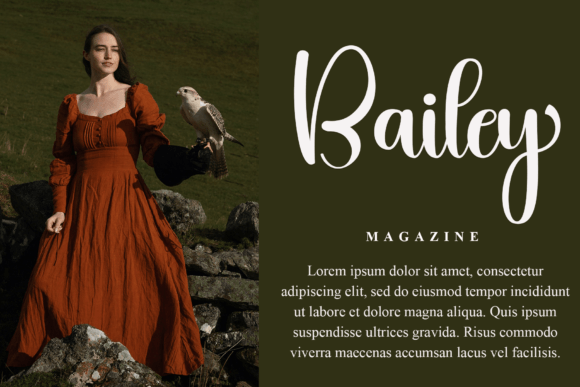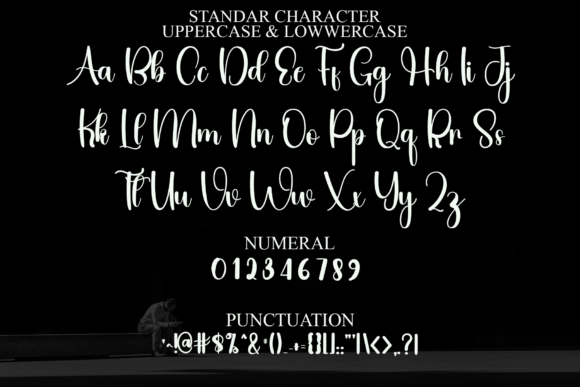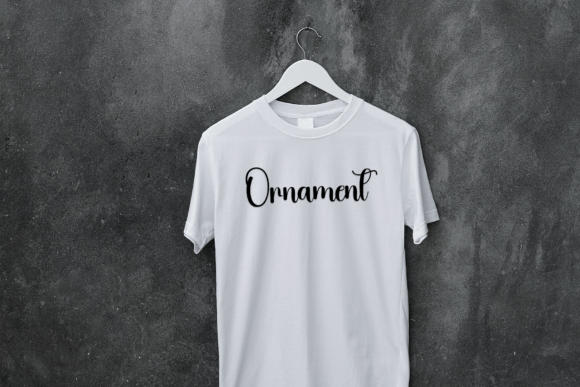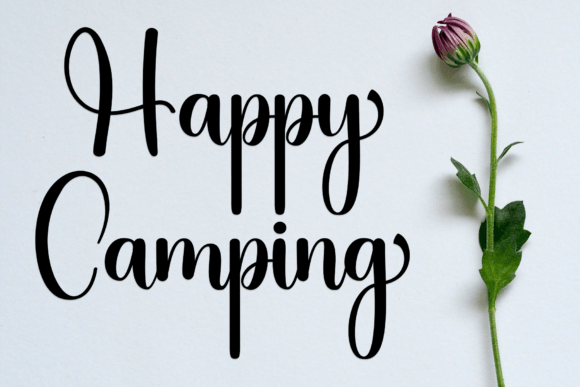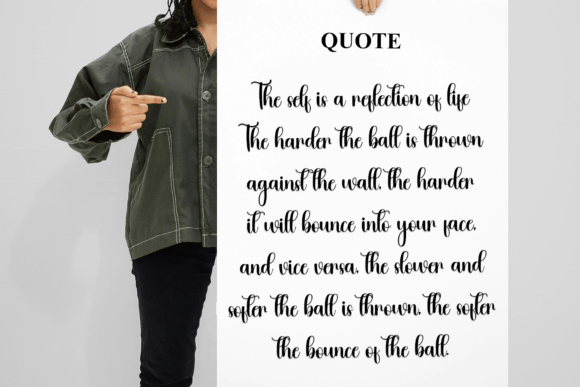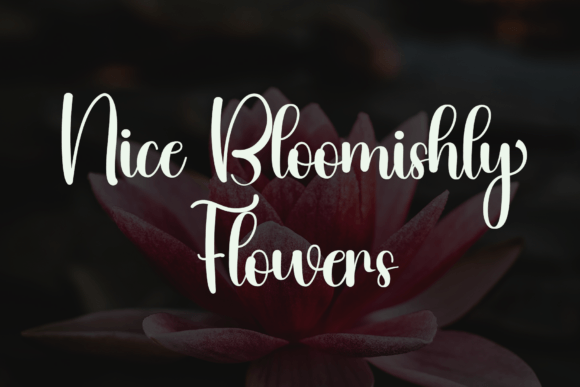
The Bloomishly Font: A Designer’s Dream Come True
I’ll never forget the moment I stumbled upon the perfect font for a client’s wedding invitation project. I had been searching for what felt like hours, scrolling through endless pages of Google results, and testing font after font in Canva. But then, I saw it – Bloomishly. I knew immediately that I had found the one. In this article, I’ll share my experience with this beautiful font, its features, and how to make the most of it in your designs.
An Honest Review of Bloomishly
• ✨ Elegant and Modern Look: Bloomishly has a classy, refined, and modern aesthetic that makes it perfect for logos, branding, invitations, stationery, wedding designs, social media posts, and more!
• 💫 Versatile: Whether you’re working on a professional project or a personal craft, Bloomishly adapts to your needs.
While Bloomishly is an amazing font, there are a few things to keep in mind:
• 🤔 Pairing with Other Fonts: As with any elegant font, you’ll want to choose complementary fonts for headings, body text, or captions. Experiment with different combinations to find your perfect match.
The Story Behind Bloomishly
Bloomishly was designed with the intention of creating a beautiful, versatile font for creative projects. Inspired by the elegance of handwritten scripts and the refinement of modern typography, Bloomishly aims to bring a touch of class and sophistication to your designs. Whether you’re a designer, crafter, or hobbyist, Bloomishly is here to help you create stunning visual content.